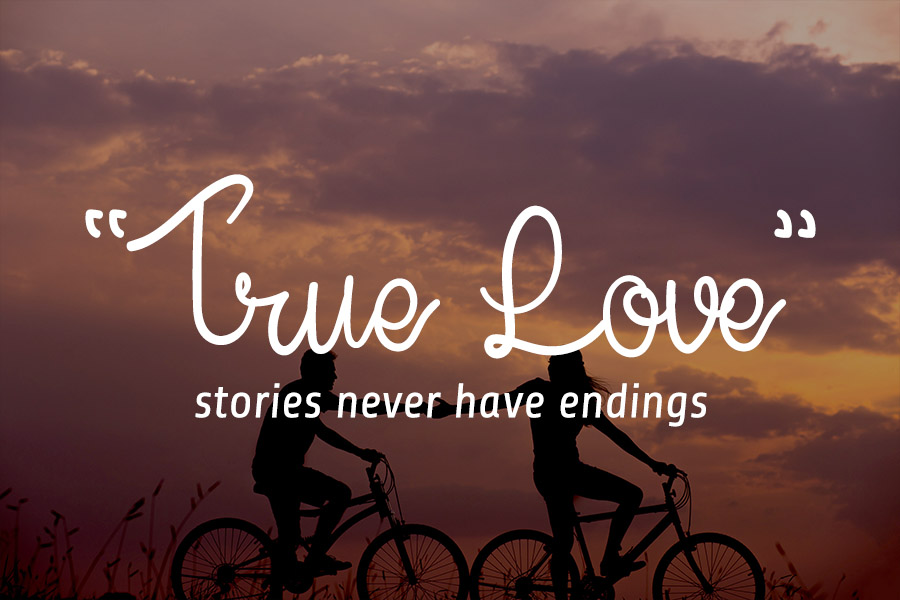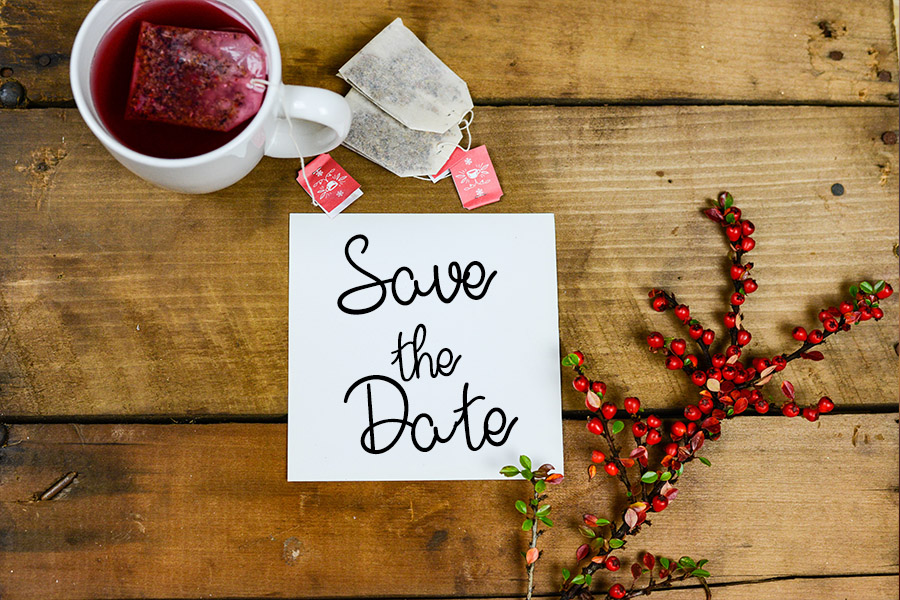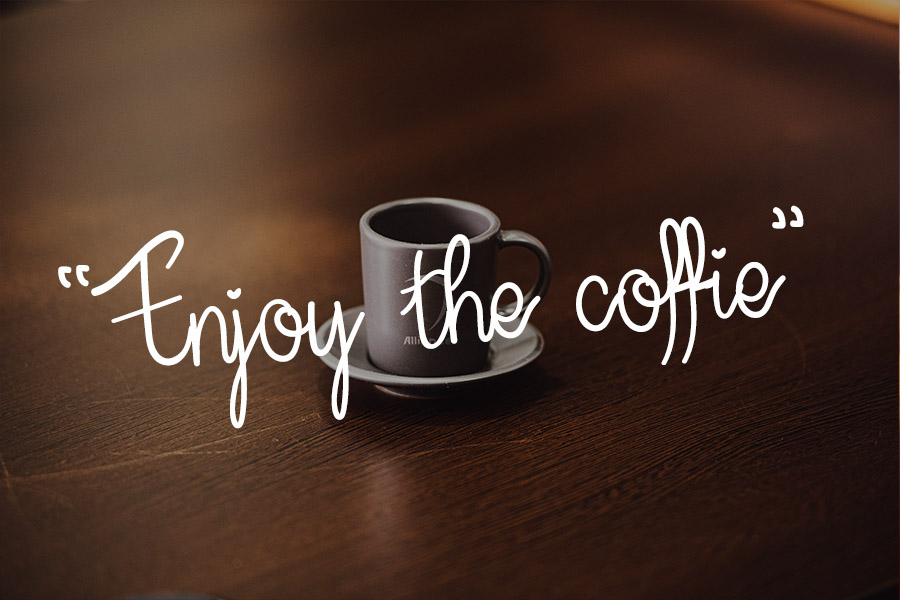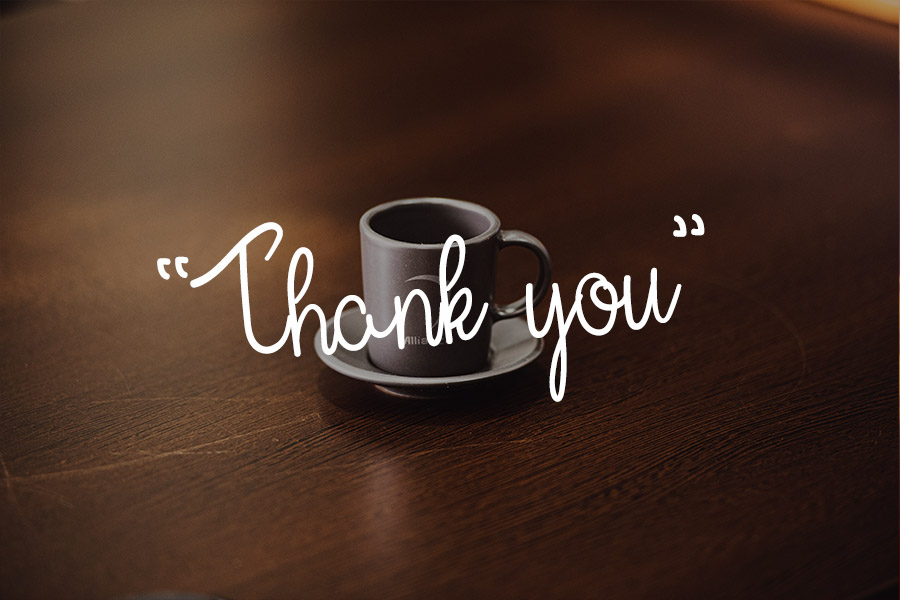
Soulmate Typeface
Soulmate Script Typeface
It’s a thin and romantic script font. This font is neatly crafted and highly detailed. Whatever the topic, this font will be a wonderful asset to your font library, as it has the potential to enhance any creation.